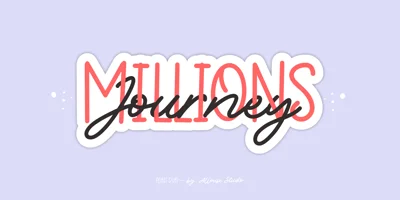
Millions Journey Font
Millions Journey Font is ideal for travel agency branding, adventure tourism marketing, inspirational book covers, life coaching materials, personal development seminars, wanderlust lifestyle blogs, and transformative journey campaigns.
What makes Millions Journey Font exciting is its inspirational adventure spirit and transformative energy, featuring wanderlust letterforms that capture the essence of life-changing journeys while delivering motivational visual impact and authentic exploration appeal.
The Millions Journey Font family includes Light, Regular, Medium, Bold, and Heavy weights, plus adventure variants and journey-inspired alternates that enhance the font's exploratory character and travel possibilities.
Millions Journey Font embodies the transformative power of adventure and the inspiring spirit of personal exploration through exceptional typography design. This motivational typeface captures the essence of life-changing journeys and the courage to explore new horizons, creating an inspiring visual language that speaks to adventurous souls and dream-chasers who value personal growth, transformative experiences, and the life-changing power of meaningful travel. The font's inspirational character and journey appearance make it perfect for travel companies, life coaches, and transformational brands that want to communicate possibility, inspiration, and the unlimited potential of human exploration.
Travel organizations and inspirational brands consistently choose Millions Journey Font for projects that require authentic adventure credibility and motivational visual appeal. The typeface's exploratory construction and inspirational personality make it exceptionally effective for travel agencies, personal development companies, and lifestyle brands where adventure and personal transformation are paramount. Each character has been designed with inspirational precision to ensure maximum impact across all journey applications and transformational environments.
The transformational advantages of Millions Journey Font extend beyond its adventure appeal to include practical functionality for diverse inspirational applications. The font maintains excellent readability during extended reading while delivering the distinctive character that creates meaningful personal connections and resonates with audiences seeking authentic life transformation. Its comprehensive character set includes travel symbols and inspirational elements that make it particularly suitable for journey documentation and motivational communication.
Travel companies, life coaching organizations, and personal development brands frequently incorporate Millions Journey Font into their brand identity systems because of its ability to instantly convey adventure authenticity and transformational possibility. The typeface's inspirational aesthetic helps establish credibility in competitive travel markets while appealing to adventurers who value meaningful experiences, personal growth, and the life-changing journeys that come from authentic exploration and transformative travel experiences.